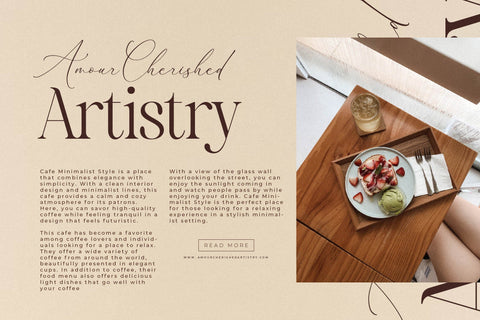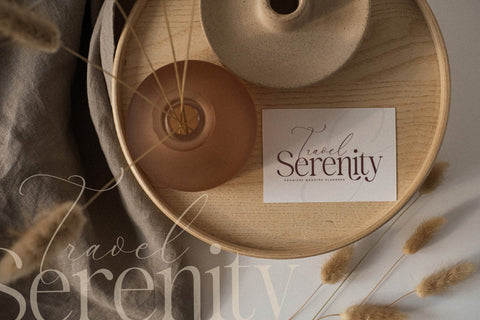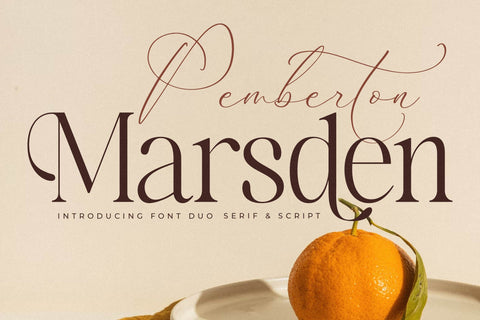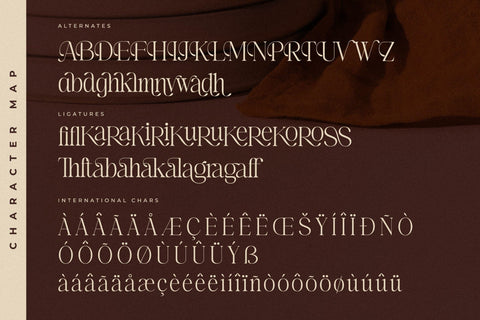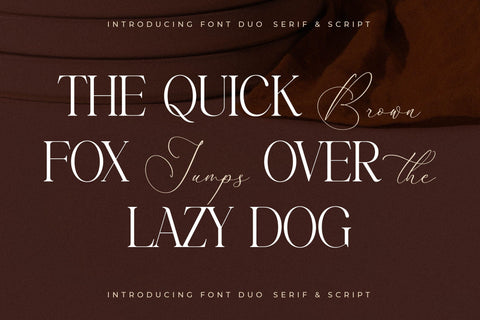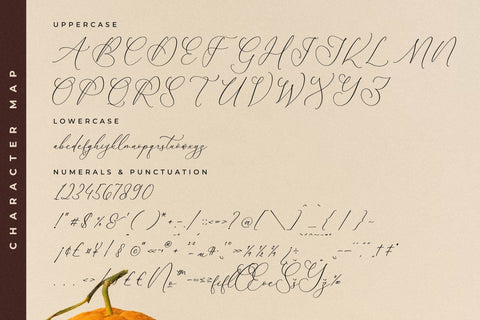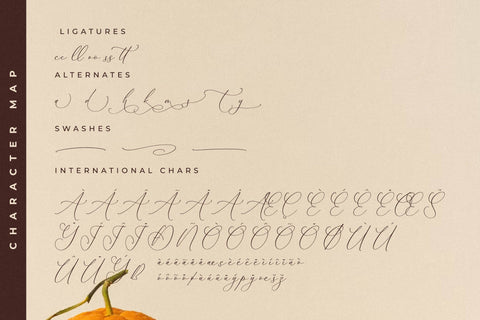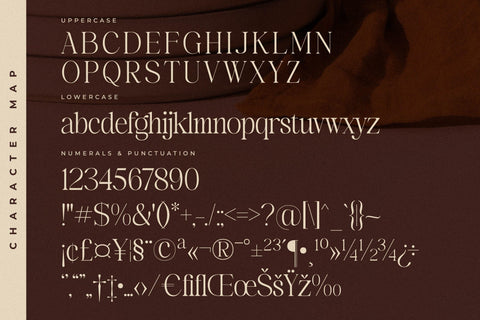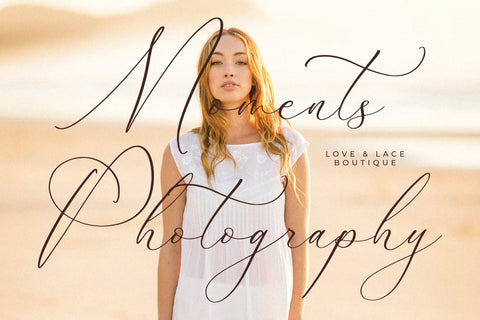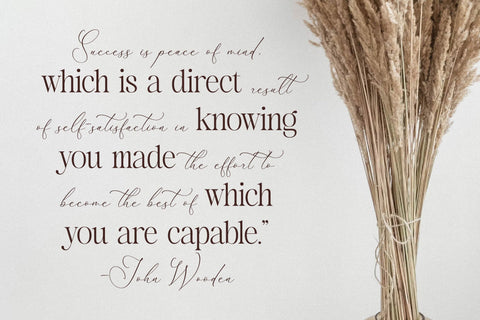
Pemberton Marsden Font Duo
Proudly present Pemberton Marsden Font Duo , created by Storytype,
A serif and script typeface that has own unique style & modern look.